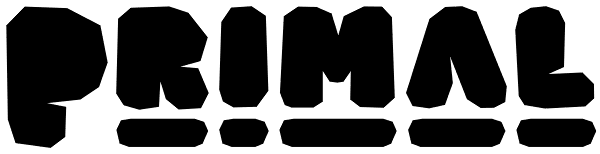
Primal
It’s time for Primal. It’s time to Rock! Primal is a polygonal typeface created with primeval times in mind. All forms have been created using few lines, angles and points. This typeface will enable you to create type that will almost scream off the...